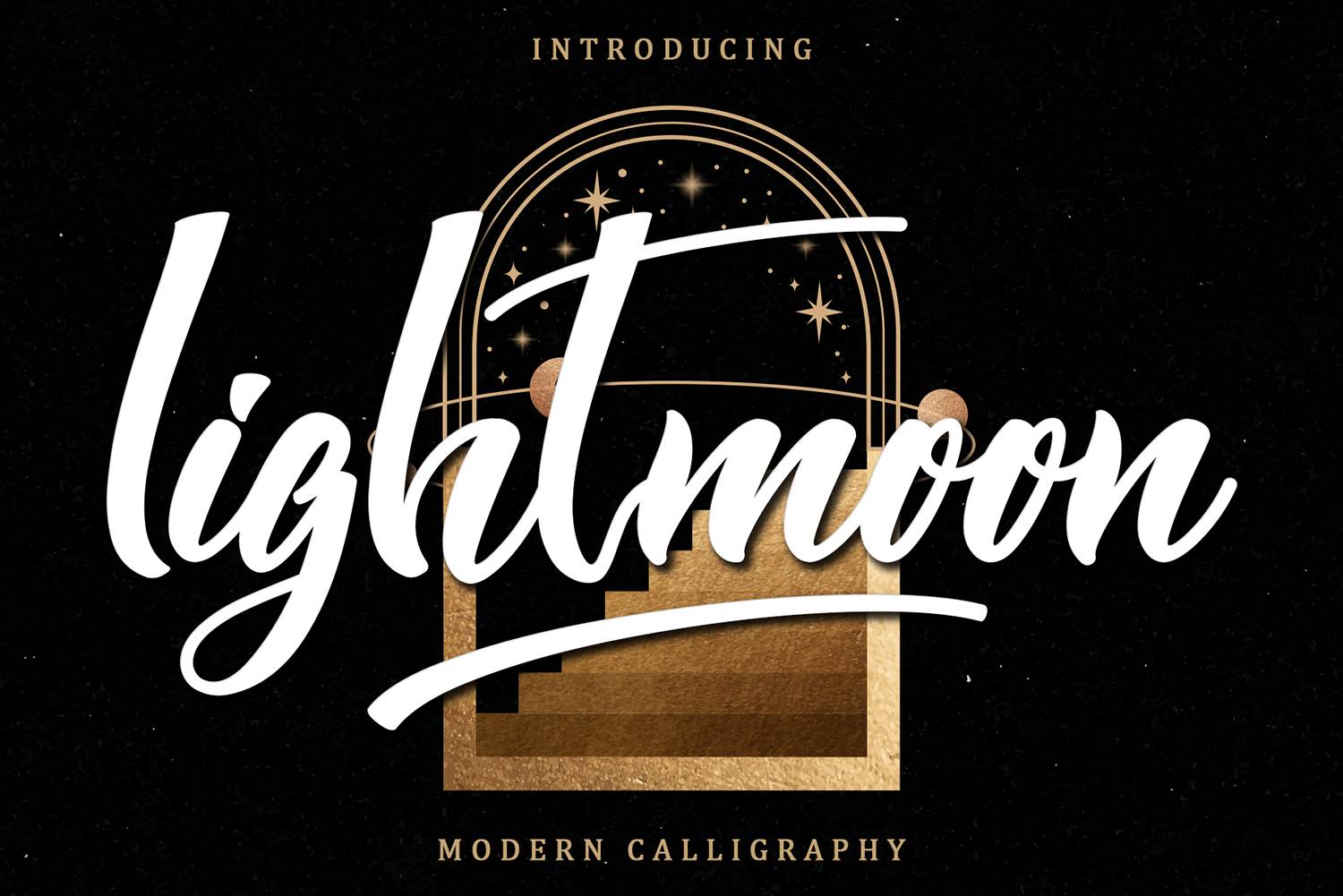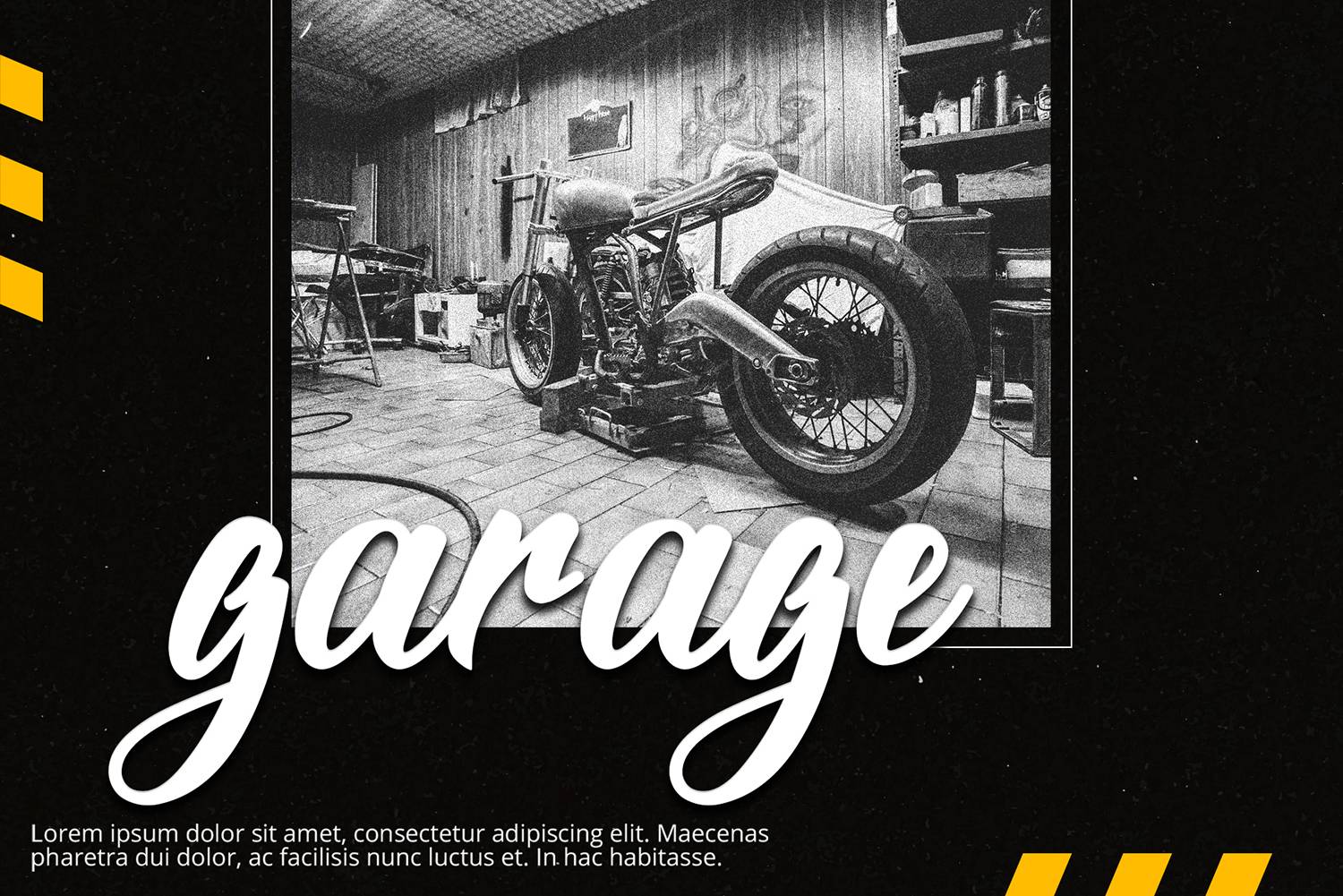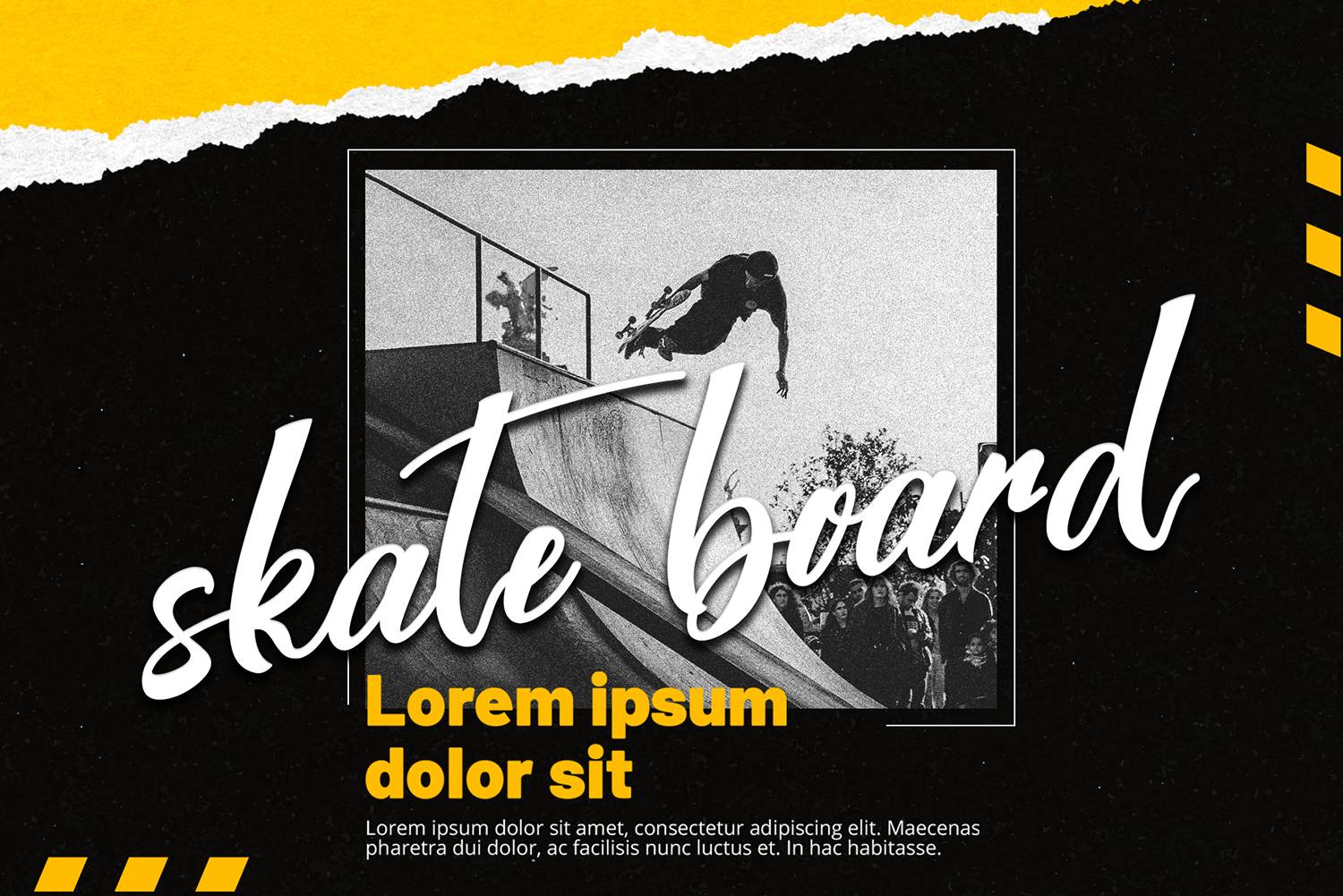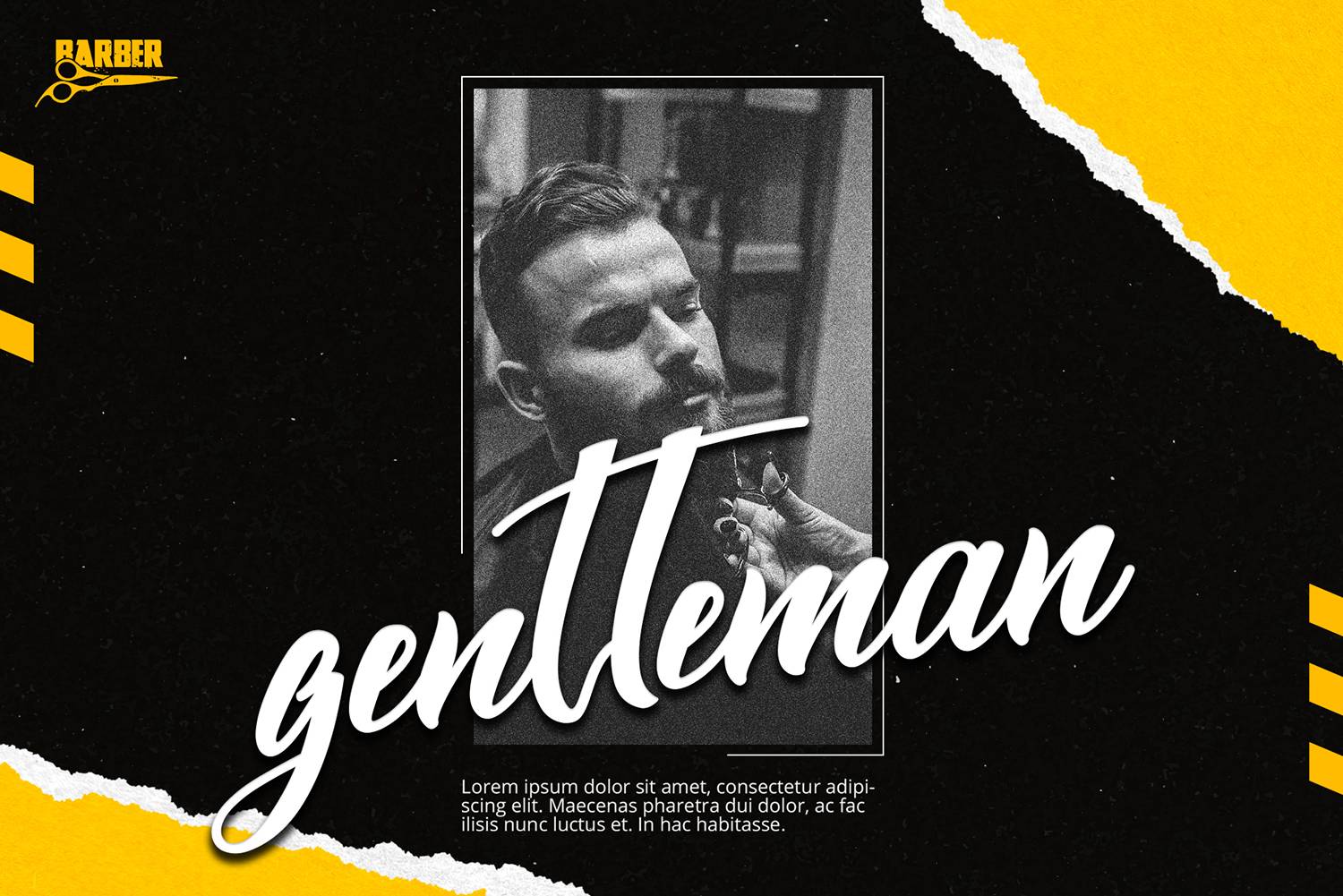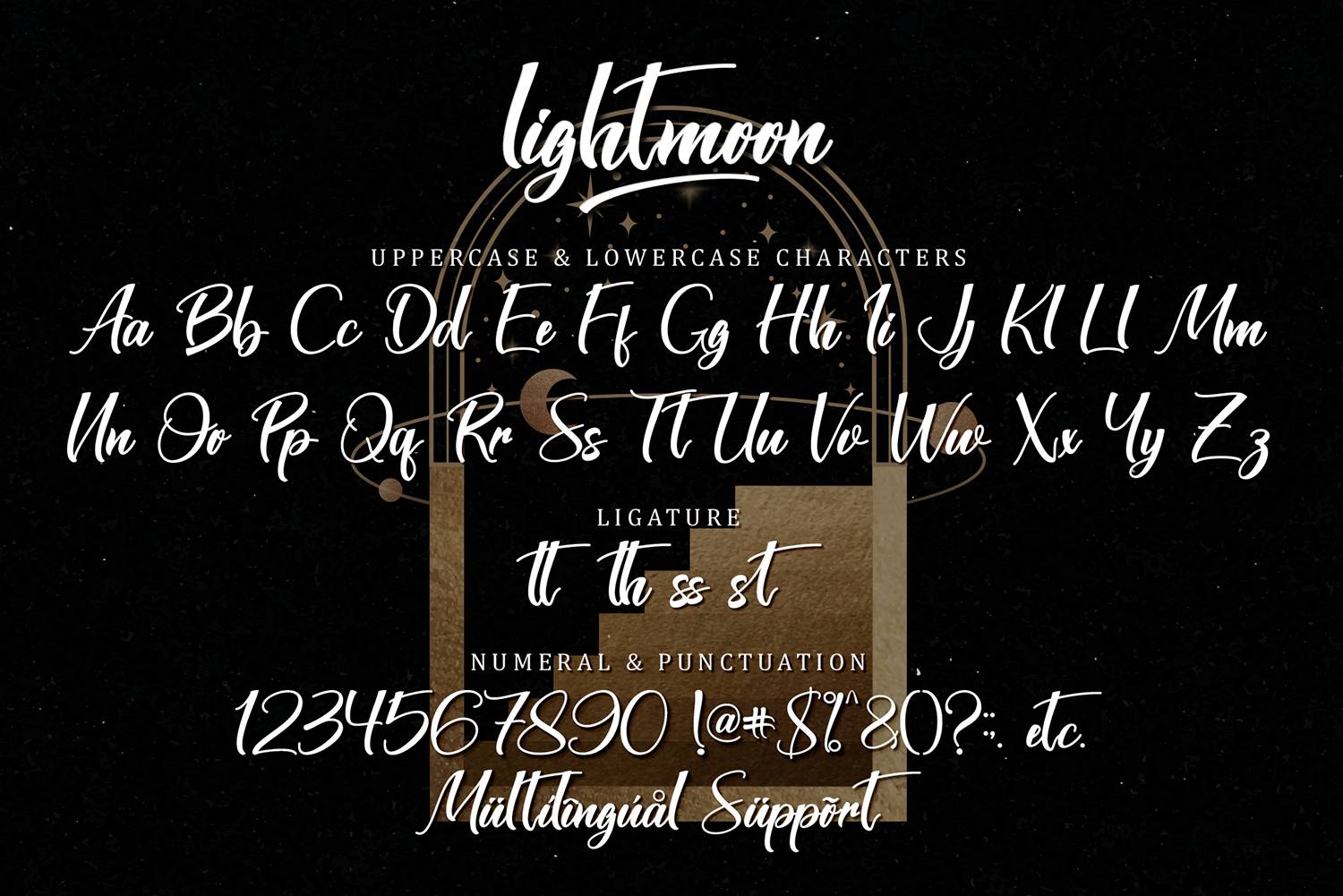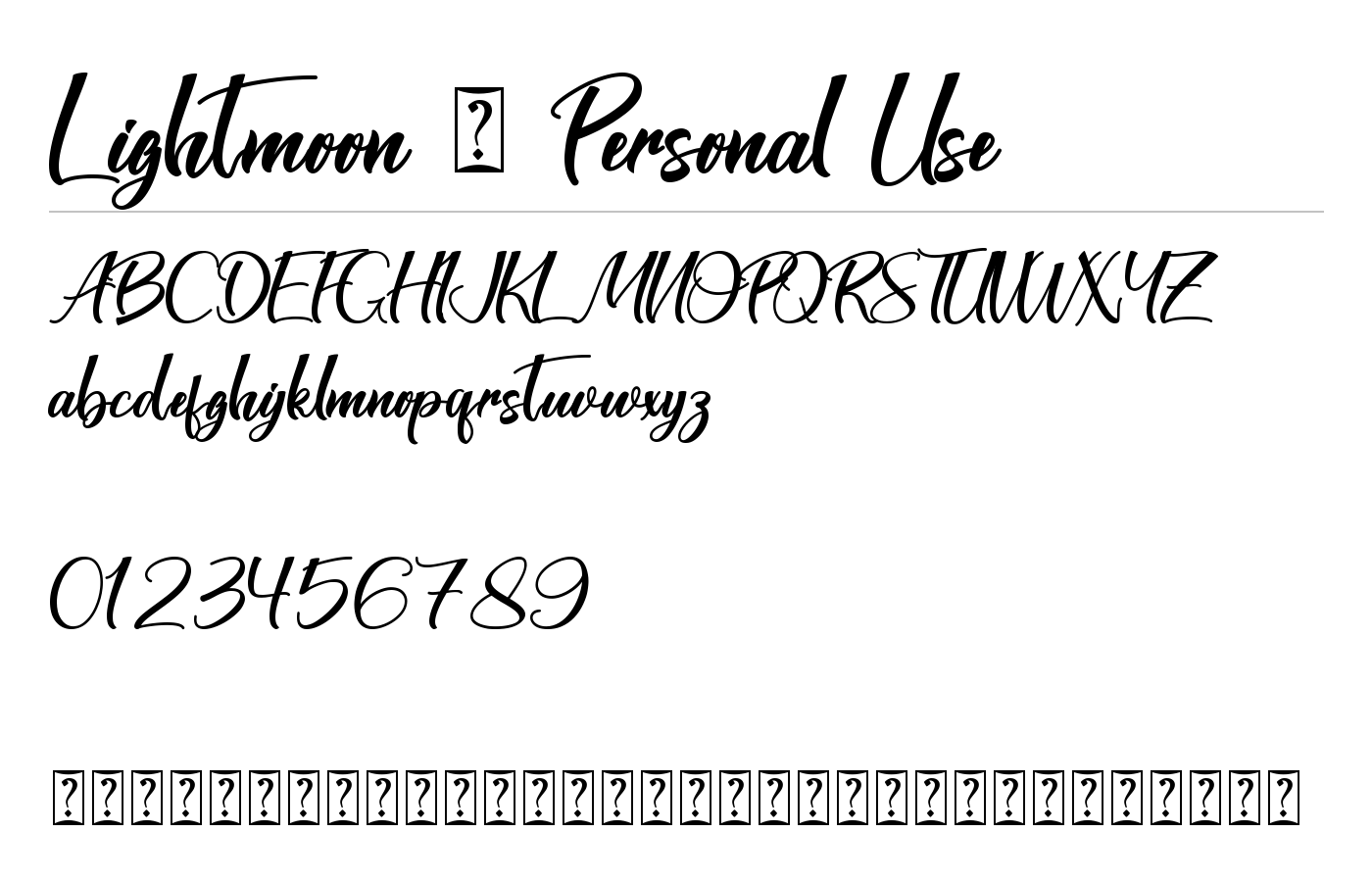
Lightmoon is an elegant script font with a handwritten, flowing style characterized by its smooth, slightly playful curves and moderate contrast in stroke weight. Its slender, upright letterforms convey a sense of sophistication and warmth, making it ideal for personal branding, invitations, and creative projects that seek a modern yet approachable feel. This font works well in headlines and display uses where a touch of graceful charm is desired.
Lightmoon Font